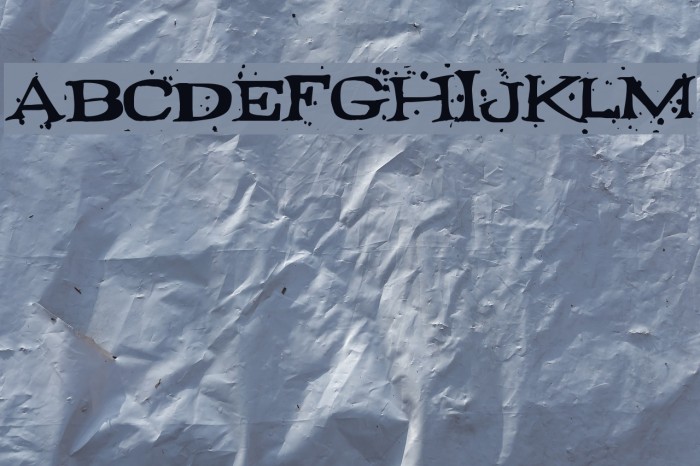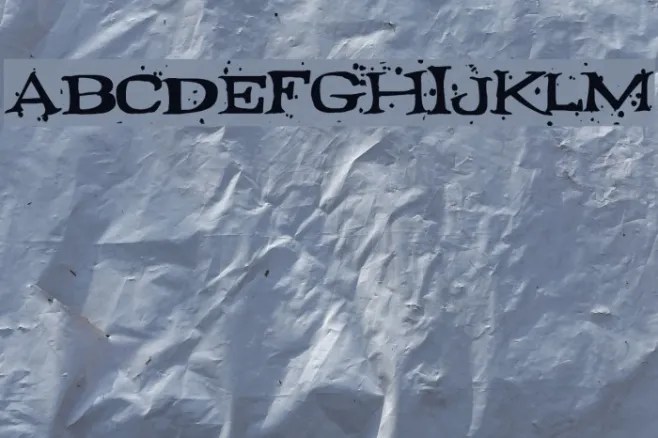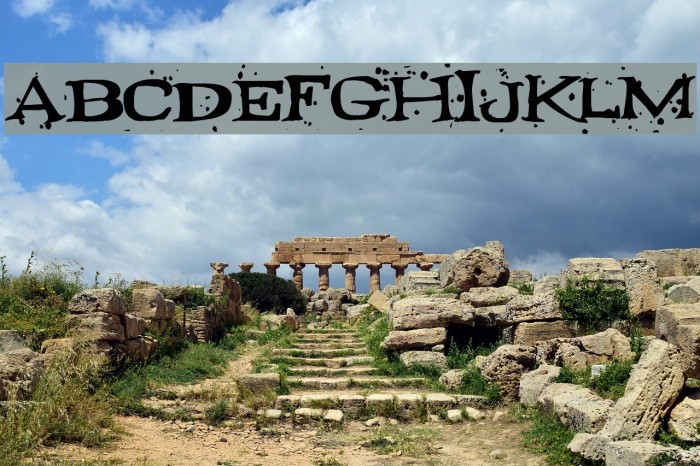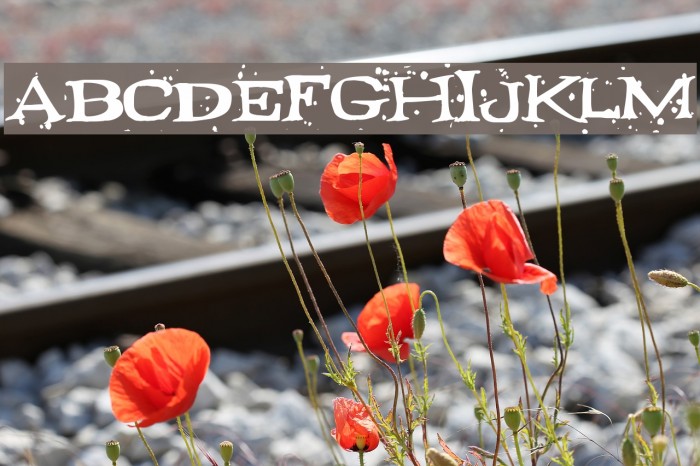
Fontocide Font
Fontocide Description
This font features a bold and edgy design with a distressed, grunge-like appearance. The uppercase letters are adorned with splatters and irregular edges, giving it a raw and rebellious feel. The strokes are thick and uneven, adding to its rugged aesthetic. The font exudes a sense of chaos and dynamism, making it ideal for projects that require a bold statement. Its unique style is reminiscent of graffiti or street art, with a touch of punk rock attitude. The overall look is both striking and unconventional, perfect for capturing attention.
Font by Berry Brooks - Fontocide
| Overall Style | Grunge, Edgy, Rebellious |
| Proposed Projects | Album covers, posters, streetwear branding, event flyers, and edgy graphic designs. |